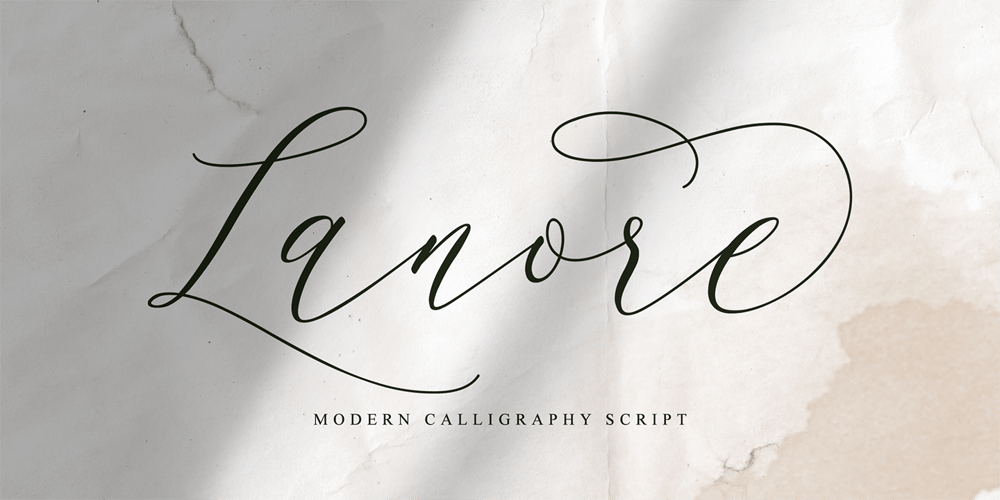
Lanore Font Family was designed by Eko Kurniawan and published by Atom. Lanore contains 1 styles and family package options. Lanore is a modern font that is elegant and luxurious. Made especially for who makes logo designs, wedding supplies, branding, beauty packaging, and more. Create your modern, clean and elegant design with Lanore.Made with OpenType features and including titling and swash, 01-06 alternative characters for lowercase letters, numbers, punctuation, alternatives, and also supports other languages.Thank you for visiting my store and happy buying!